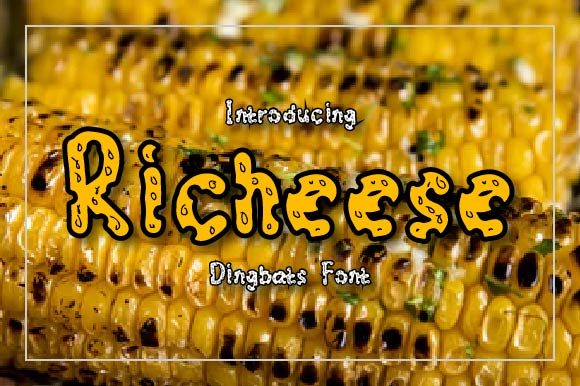
Feast your eyes on Richeese, an extraordinary display font created by Ciriative, a name renowned for producing typographic masterpieces. Its enthralling aesthetic is the epitome of uniqueness and originality, begging you to unleash your imagination and create designs that dance with delight.
Richeese is not just another font; it's an experience, an adventure into a world of limitless creativity. Its quirky and versatile nature makes it the ideal companion for crafting logos that radiate joy and personality, bound to leave an unforgettable impression on your audience.
Visualize the tantalizing possibilities as you seamlessly blend Richeese into logos for food businesses, bakeries, cafes, and restaurants. Its playful curves and energetic lines are like a symphony of flavor, inviting culinary enthusiasts to embark on a gastronomic journey filled with whimsy and delight.
Richeese's charm extends far beyond the realm of food branding. Unleash its boundless potential to create stunning invitations, greeting cards, posters, and social media graphics that exude a heartfelt and cheerful vibe. Its ability to transform ordinary words into extraordinary works of art makes it the perfect choice for expressing gratitude, love, and friendship with a touch of captivating playfulness.
Richeese is like a burst of confetti at a joyful celebration, adding vibrancy and merriment to your creative projects. It possesses an uncanny ability to bring smiles to faces, uplift spirits, and spark imaginations with its infectious energy.
So why settle for ordinary fonts when you can have Richeese, the key to unlocking a treasure trove of creative possibilities? Its playful personality and boundless versatility make it a font like no other, ready to transform your designs into captivating masterpieces that ignite joy and leave an indelible mark on the hearts of your audience.